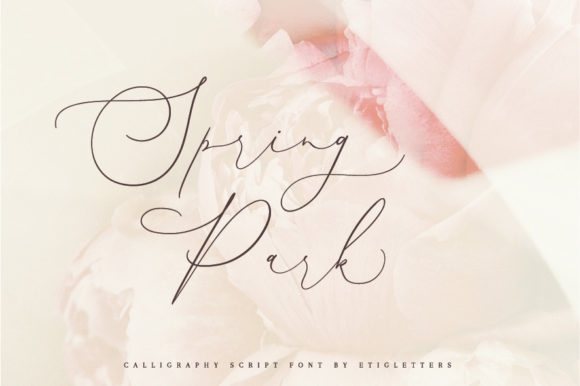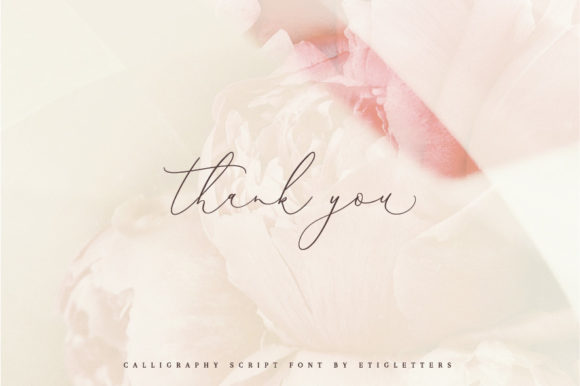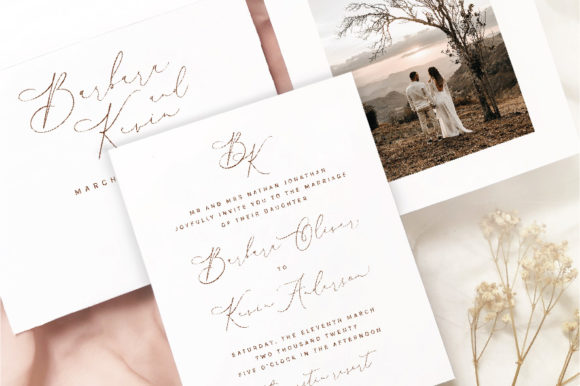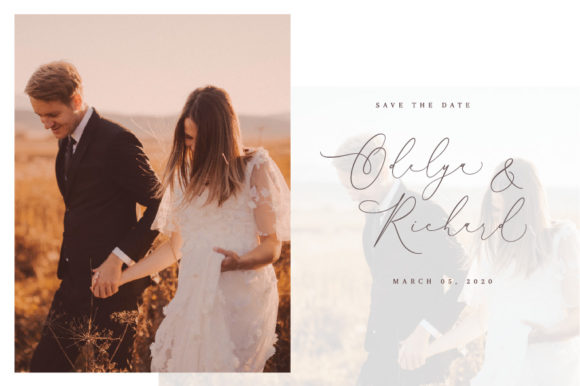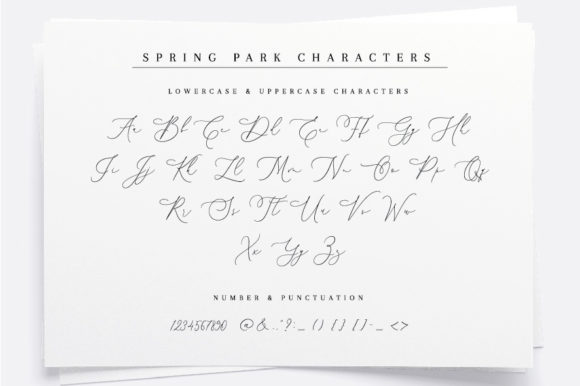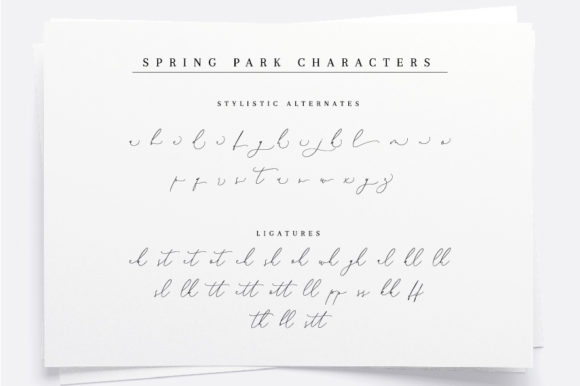
About Spring Park Font
Spring Park simplifies elegance into one truly outstanding script font. It maintains its classy calligraphic influences while feeling contemporary and fresh. This versatility will appeal to a wide range of crafty ideas, from letterheads and titles, to stationery.
This font is PUA encoded which means you can access all of the amazing glyphs and swashes with ease! It also features a wealth of special features including alternate glyphs and ligatures.